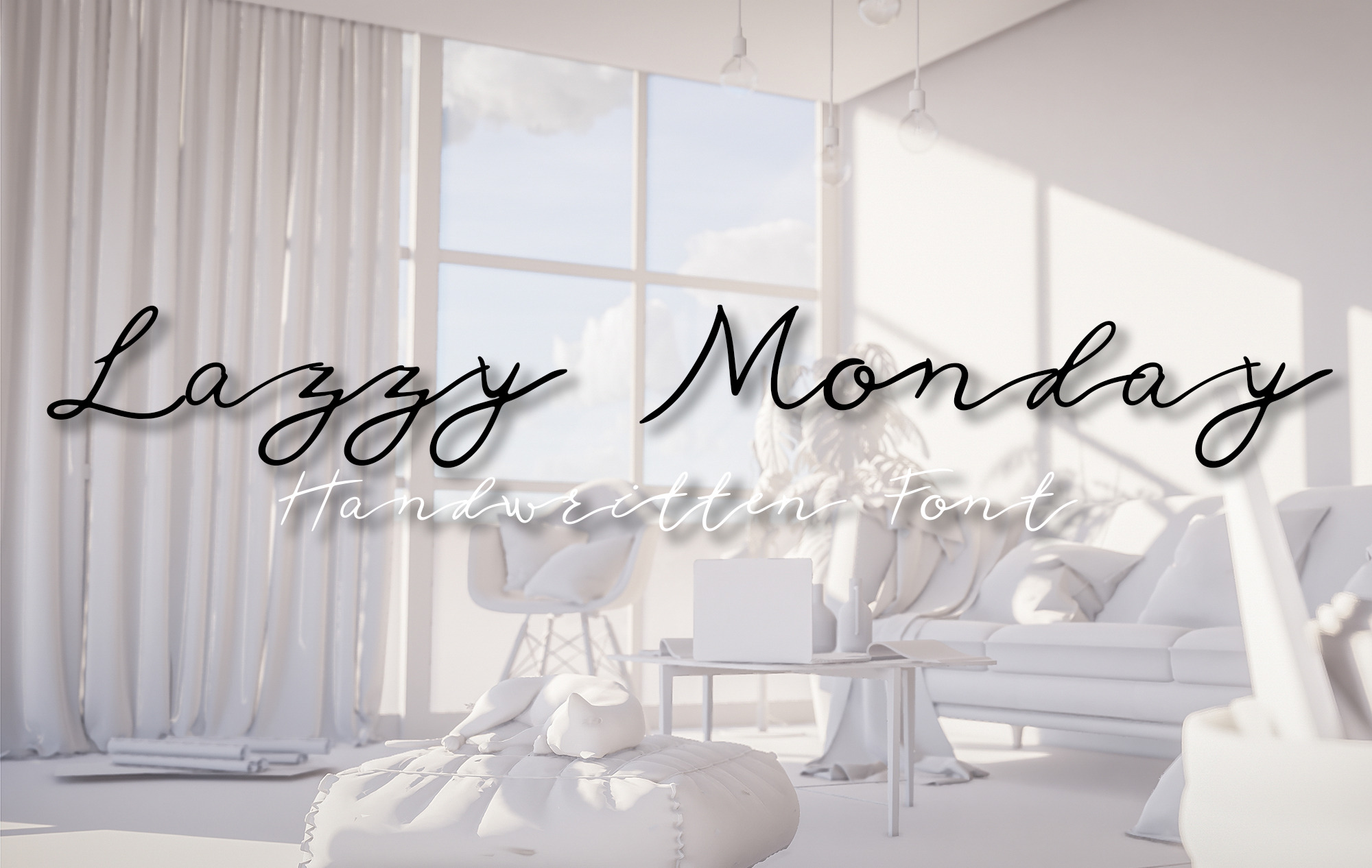
Lazzy Monday font
Oh no, more Monday ! Lazzy Monday font is simple handwriting font for lazy people. With characters that look good, chill-free, suitable for use as text on your online content cover or personal blog. Try it out and you'll fall in love with the Lazzy Monday font.